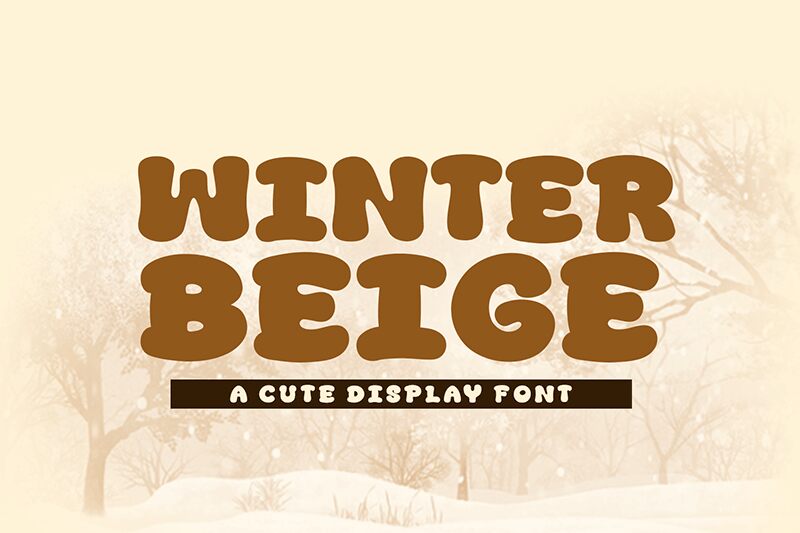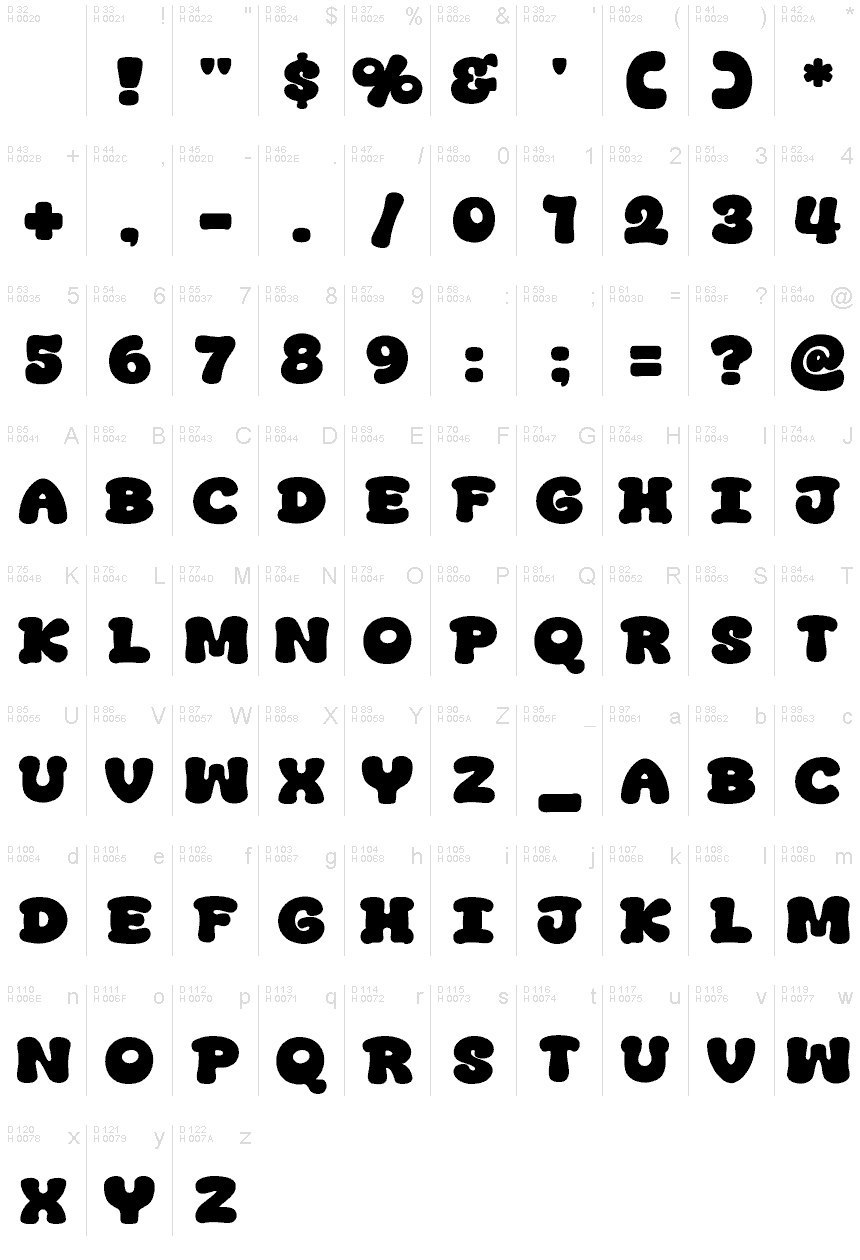
Winter Beige
Winter Beige font is a cool cartoon-inspired display font by Khurasan. It features extended bold letters with rounded endings and soft appearance. This font styles imposes a friendly tone and vintage charm in every project it becomes part of.